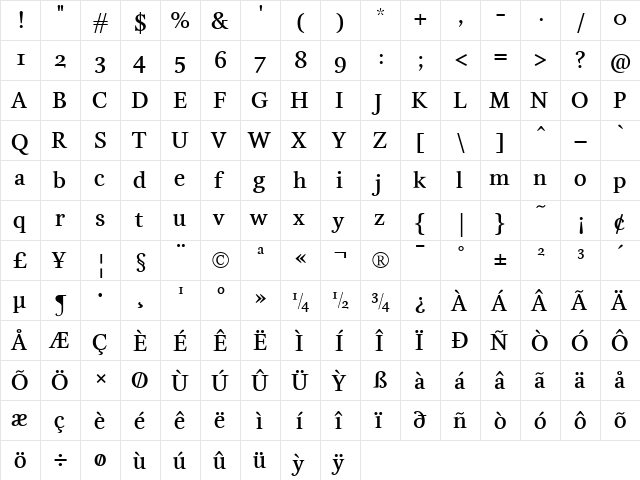
EstaBold Regular
| Foundry | Dino dos Santos _ DSType |
Design Context for EstaBold Typeface
EstaBold takes a measured approach to typography — its balanced proportions and neutral character make it a reliable workhorse for both digital and print work. The heavy weight commands attention and anchors typographic hierarchies.